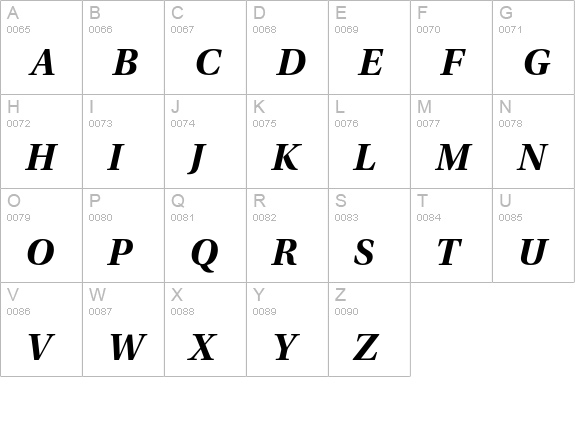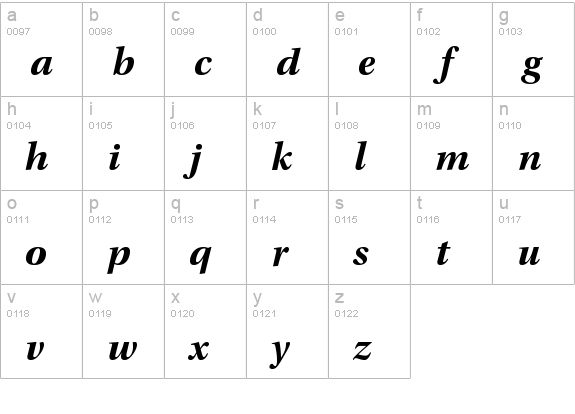
Utopia Std Bold Subhead Italic Font Details
Utopia Std Bold Subhead Italic is a strong, high-contrast, italic variant in the Utopia typeface family \xE2\x80\x94 well suited to headlines, attention-grabbing titles, and strong calls-to-action.
Utopia Std Bold Subhead Italic font is a modern and stylish typeface that exudes confidence and sophistication. Its bold weight and italic slant make it perfect for creating attention-grabbing subheadings and titles in any design project. With its clean and well-defined letterforms, Utopia Std Bold Subhead Italic font adds a touch of elegance to any composition. Whether used in print or on-screen, this font effortlessly captures attention and conveys a sense of professionalism. One of the greatest advantages of Utopia Std Bold Subhead Italic font is that it is freely available to download at FontsMarket.com. This means that designers and creatives can easily access this exceptional font without any cost. The ability to freely obtain and use this font allows for greater versatility and creativity in design projects. Utopia Std Bold Subhead Italic font is the perfect choice for those looking to add a touch of sophistication and style to their designs. Its bold weight and italic slant create a strong visual impact, making it ideal for subheadings and titles that need to stand out. Download this font for free at FontsMarket.com and elevate your design projects to new heights.